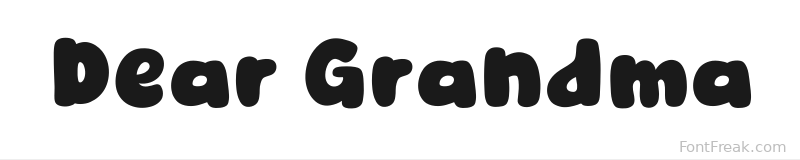
Dear Grandma
The "Dear Grandma" font by Syaf Rizal is a delightful handwritten typeface that exudes warmth and nostalgia. As a display font, it features playful, rounded letters that evoke a sense of familiarity, reminiscent of handwritten notes from loved ones. The stroke weight is consistently bold, giving the typeface an inviting presence, while the soft curves add a touch of whimsy. The overall spacing is generous, enhancing readability and allowing each character to breathe, making it suitable for various design contexts.
This font is particularly well-suited for a range of creative projects. It shines in wedding invitations, where its charming aesthetic can help convey the joy and intimacy of the occasion. Additionally, "Dear Grandma" is ideal for children's book titles, where its friendly appearance can capture the attention of young readers. Restaurant menus can also benefit from this typeface, particularly in casual dining establishments, where it can create a warm and welcoming atmosphere. Moreover, it can be effectively used in promotional materials for small businesses, providing a personal touch that resonates with potential customers.
Targeting graphic designers, small business owners, and content creators, "Dear Grandma" offers a unique, free-to-use option for anyone looking to add a personal flair to their projects. The font’s playful nature allows for creativity to flourish, making it a favorite among those who appreciate a heartfelt design.
In conclusion, "Dear Grandma" stands out due to its distinctive charm and versatility. This font not only captures the essence of handwritten communication but also invites users to infuse their designs with personality. Don’t miss the opportunity for a "Dear Grandma font free download" to elevate your creative projects with a touch of nostalgia.